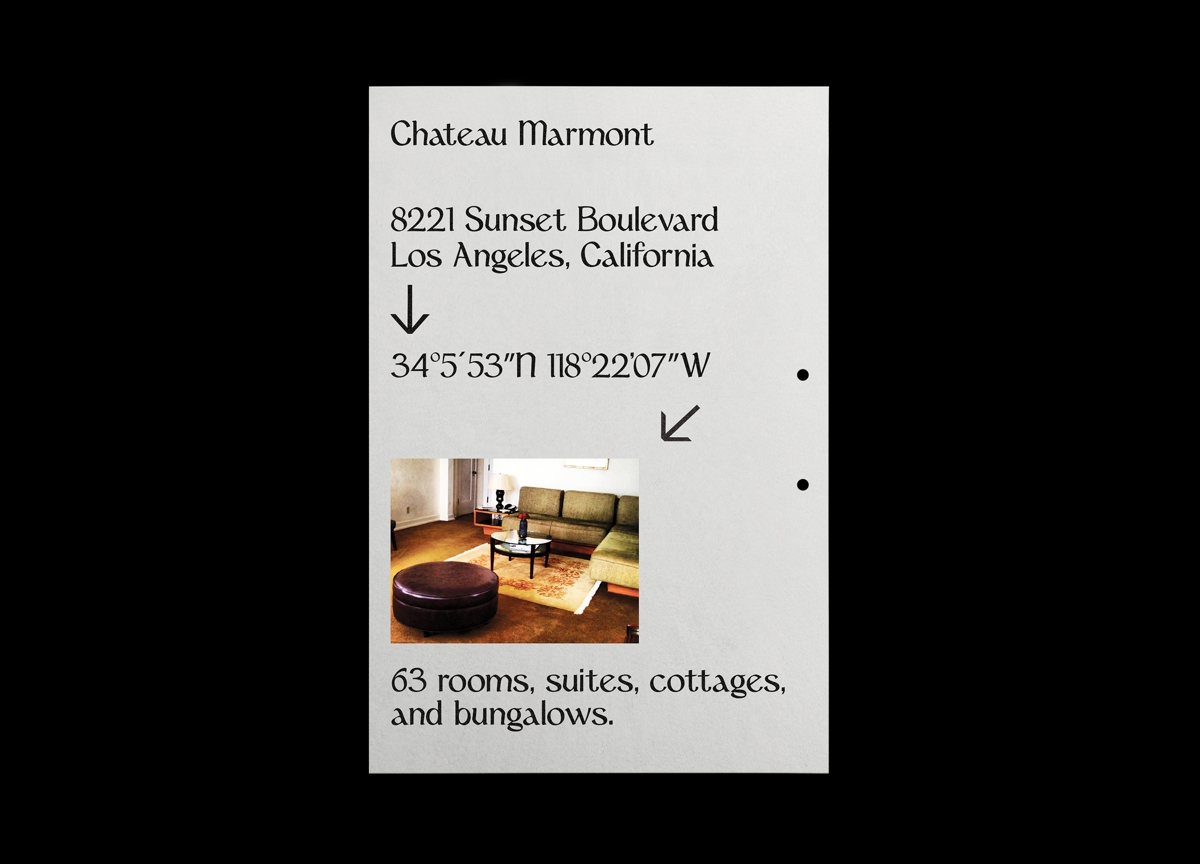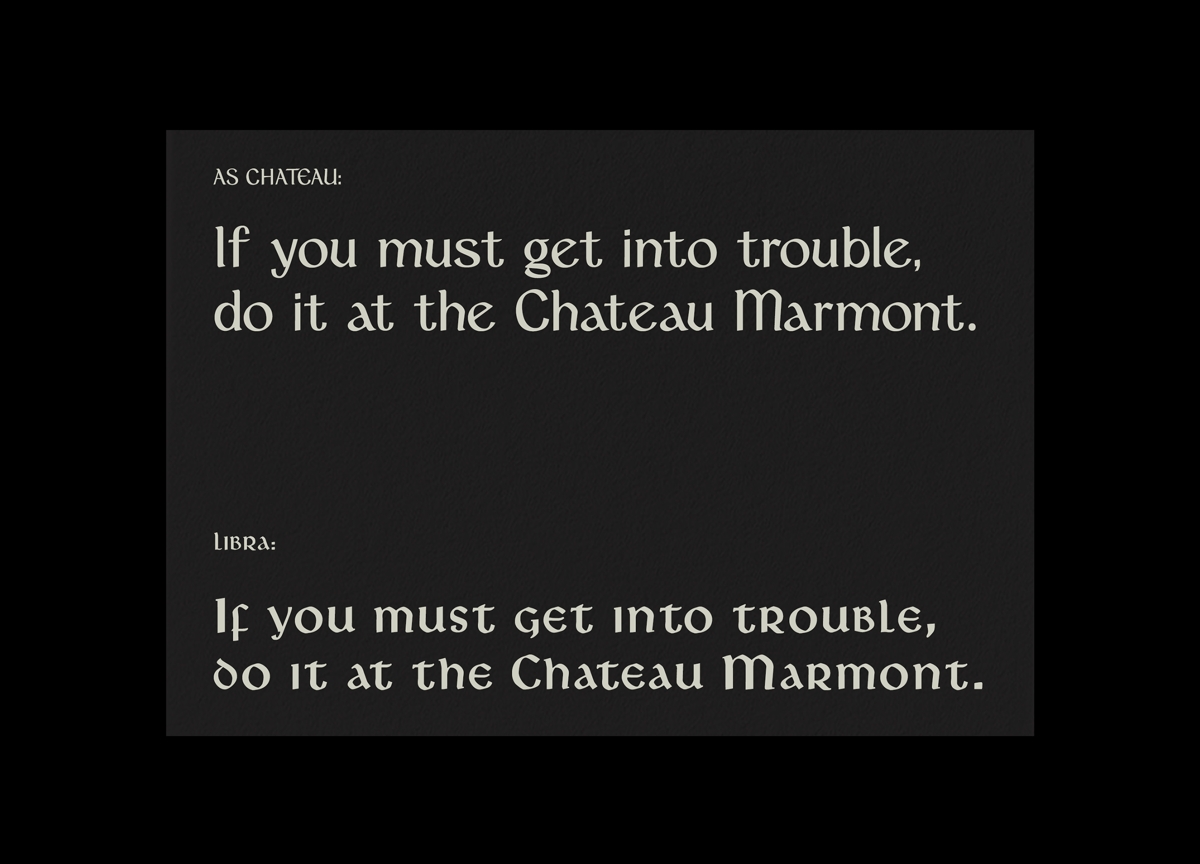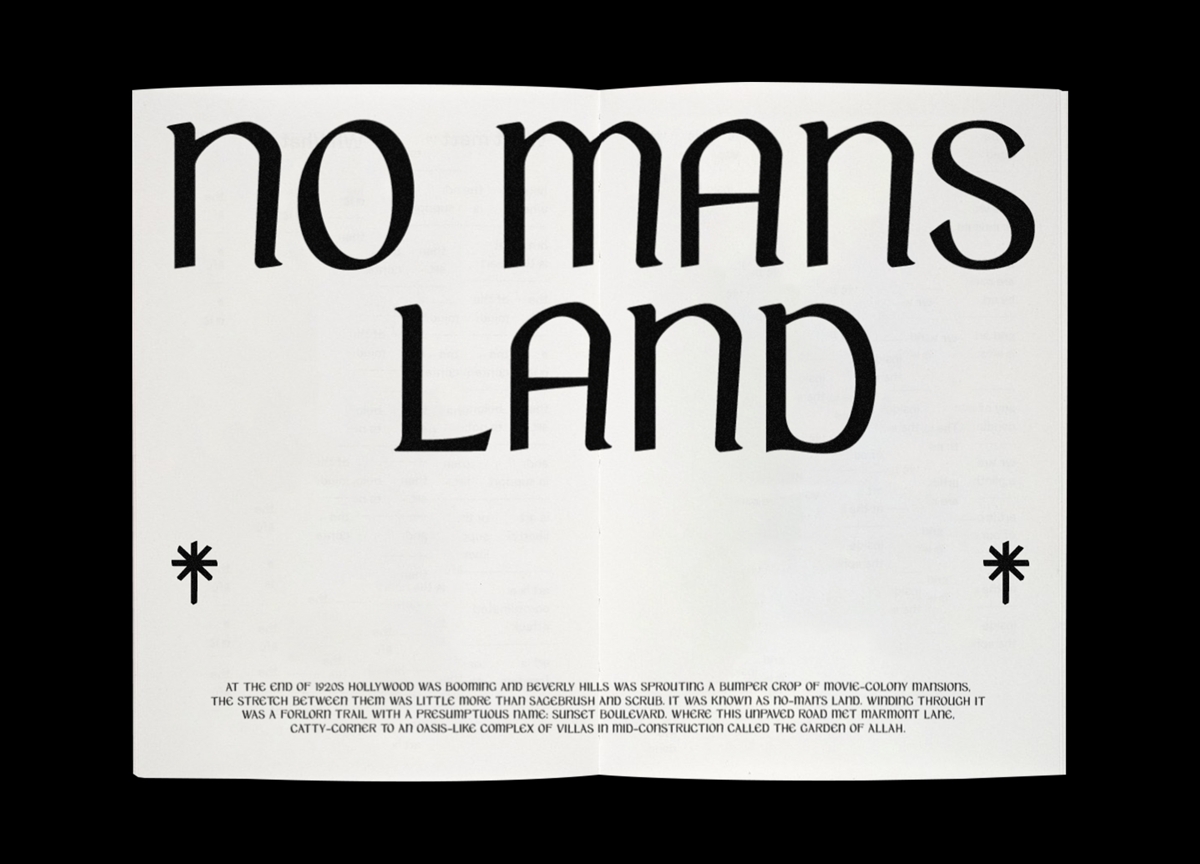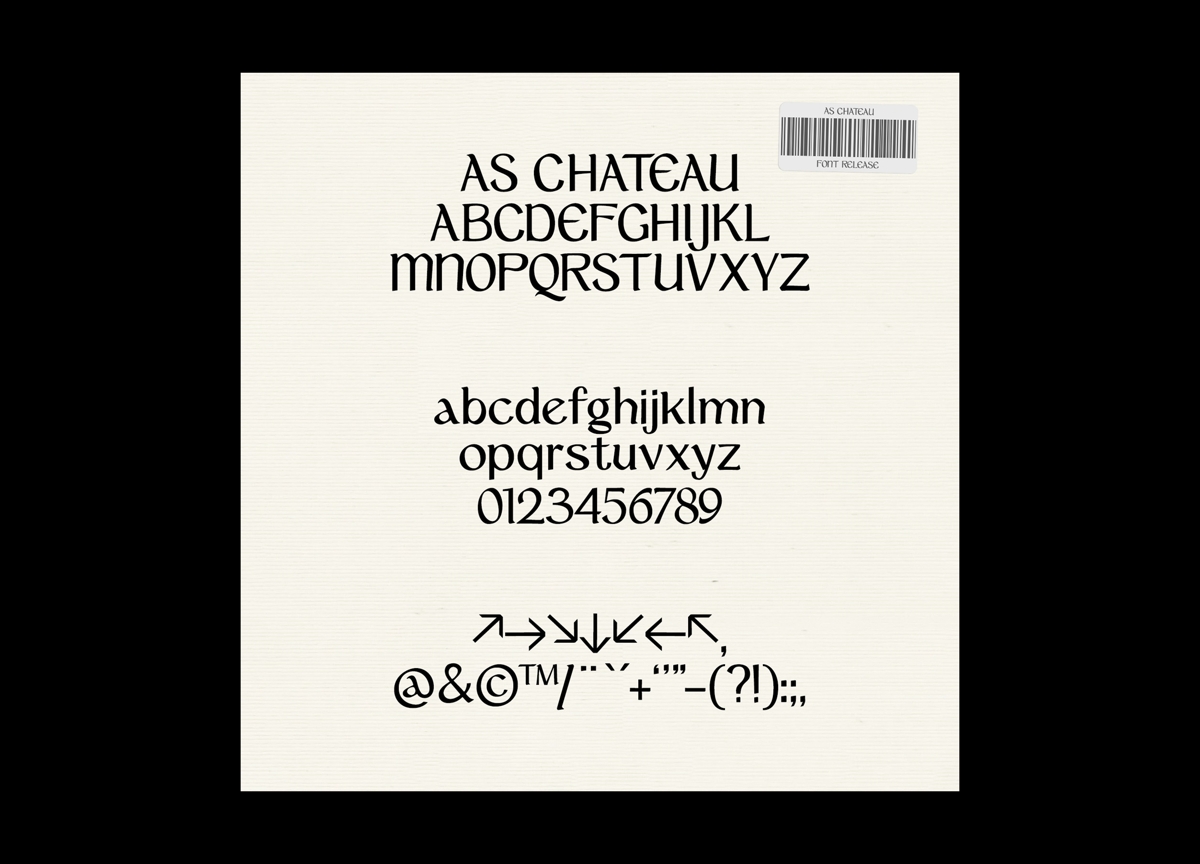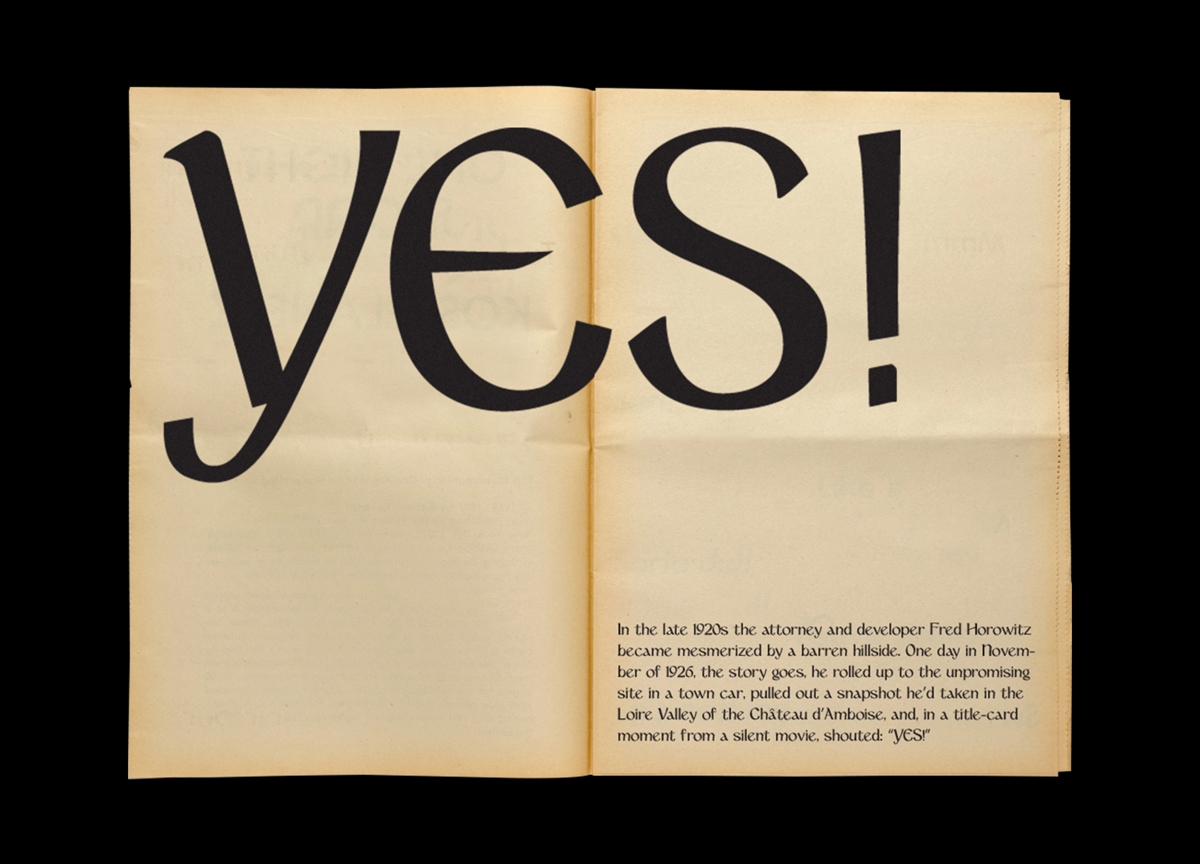
LA’s storied Chateau Marmont has inspired a typeface
Astrae Studio based its Chateau typeface on the ‘medieval’ shapes of the Hollywood hotel’s logo
Chateau Marmont is a part of Hollywood legend. Frequented by celebrities from F Scott Fitzgerald to Dorothy Parker, Courtney Love to Quentin Tarantino, it has also appeared in multiple movies and works of literature, plus is notorious for the deaths of both John Belusi, who died of a drug overdose in Bungalow 3, and Helmet Newton, who was killed in a car crash leaving the hotel’s driveway.
After a 2019 visit to the iconic hotel, the founders of Astrae Studio decided to pay homage to its logo and merchandise – which is set in Libra, a typeface designed by S H de Roos in 1938. Although the pair loved the 92-year-old hotel’s “gothic glamour” and “ice cube-filled pissoirs”, they hadn’t expected to fall in love with its typography. So, once back in their home town of Copenhagen, they set about creating an updated version of Libra.
The original typeface takes inspiration from pre-Carolingian uncial letters, which date back more than a thousand years – explaining the design’s vaguely medieval look. Astrae wanted to create a version of Libra that would be more contemporary and versatile. The original mixed upper and lower case, and also used a hard-to-recognise ‘d’ that more closely resembled an ‘o’ or other medieval symbol.
“Libra is very unstructured in its design,” founders Carl-Emil Storm Gabrielsen and Jesper Uttrup told CR. “The curves, serifs and thickness of the letters vary a lot. This is definitely what makes the font charming, but in many instances these quirks make it hard to use – especially for longer texts. So we have done our best to reach a balance between keeping some oddities and creating a more streamlined font.”
Chateau took around six months to complete, with Gabrielsen and Uttrup describing the project as a reminder of sunnier, pre-lockdown times at the LA hotel. He says the studio is hoping to collaborate with Chateau Marmont on its merchandise sometime in the future.